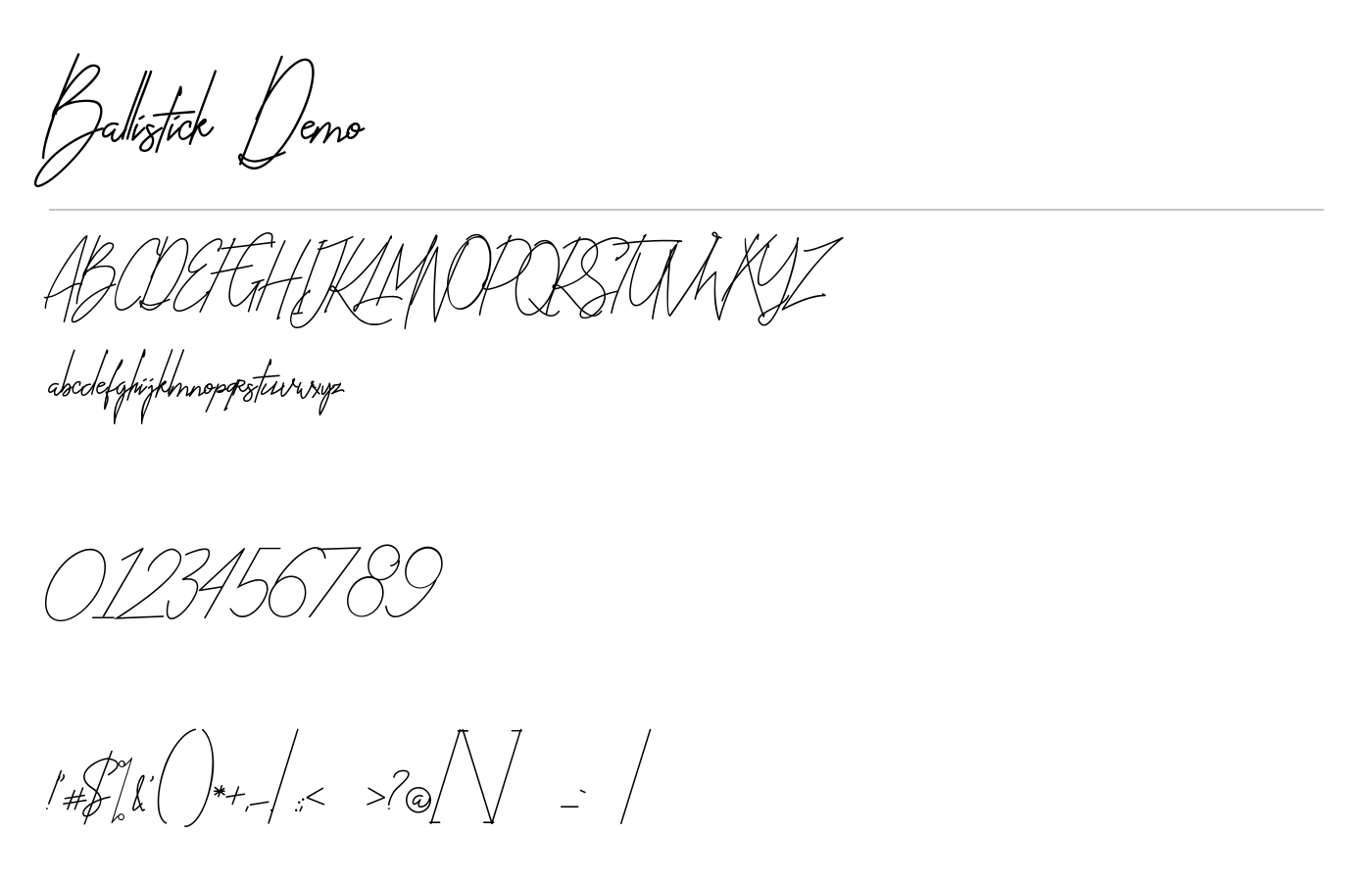
Ballistick Demo is a delicate, handwritten script font characterized by its thin, elegant strokes and tall, narrow letterforms. Its flowing, slightly irregular lines give it a personal and artistic feel, making it ideal for creative projects, invitations, and branding that seeks a stylish yet intimate touch. This font works best in headlines or display use where its unique calligraphic charm can truly stand out.
Ballistick Demo Font
About Ballistick Demo Font
| Font family | Ballistick Demo Font |
| Designer | Sigit Dwipa |